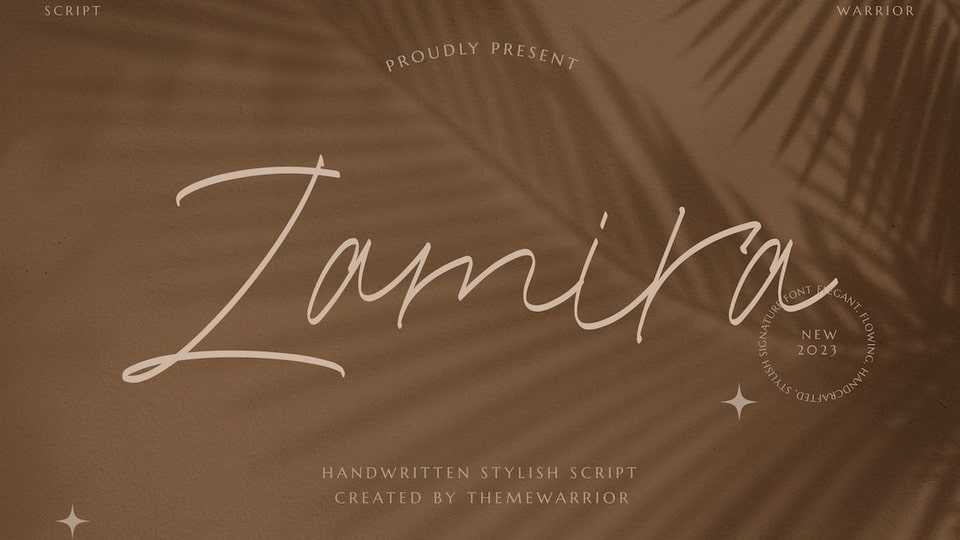
Download Zamira font, a handwritten typeface with a bit of modern and elegant style. The font is perfect to be use on greeting cards, wedding invitation & stationary, photographer logo, signature.
Designer: ThemeWarrior